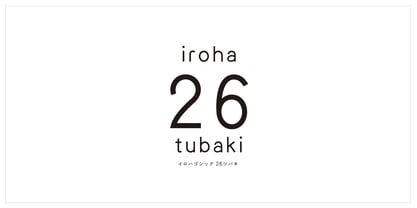
iroha 26tubaki StdN
by Kinuta Font Factory
The iroha 26tubaki StdN Font Family was designed by and published by Kinuta Font Factory. iroha 26tubaki StdN contains 1 styles. More about this family
Iroha 26tsubaki is an easy-to-use and enduring kana. The kanji for iroha is common. The design is simple, with an awareness of straight lines. There are 12 kana in total.
Experience the joy of using different kana characters. When you look at the characters, thoughts and ideas naturally come to mind. Why did it take this form? How would I do it? For example, the font “iroha gothic” from Kijima Type Foundry has 12 different kana characters.Just as there are “voice actors” who convey words through their voices, there should also be “character actors” who convey words through characters. This font was created with that idea in mind. Experience the unique charm of Japanese, which combines kanji and kana, through this font.The richness of language will surely uplift your spirit.